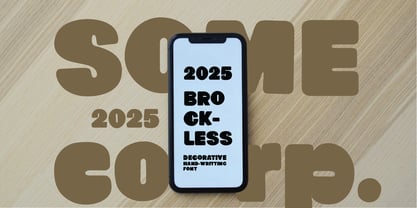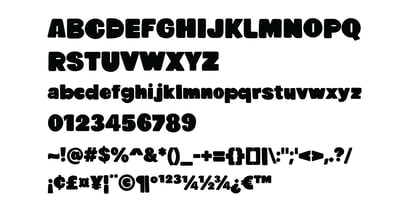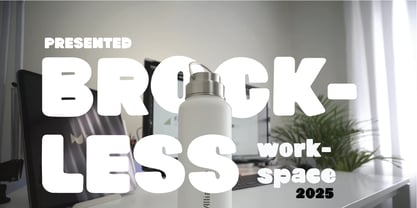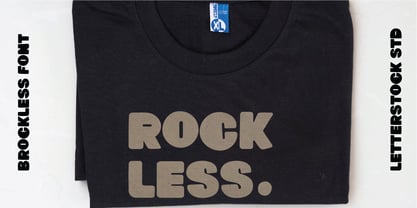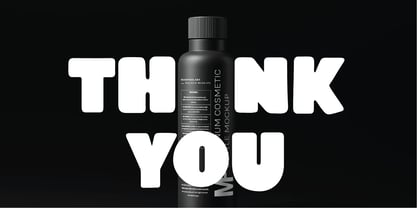
Brockless
by LetterStock
The Brockless Font Family was designed by Studio LetterStock and published by LetterStock. Brockless contains 1 styles.
Brockless is modern sans font insprire by kids poster lettering art.
Brockless is a perfectly choice for any creativedecorative typeface design such as logos, advertisements, watermark on photography, stationery, branding project, display and magazine, invitation, corporate brand, product design, label, business project and many other project with creative playful touch.
Designers: Studio LetterStock
Publisher: LetterStock
Foundry: LetterStock